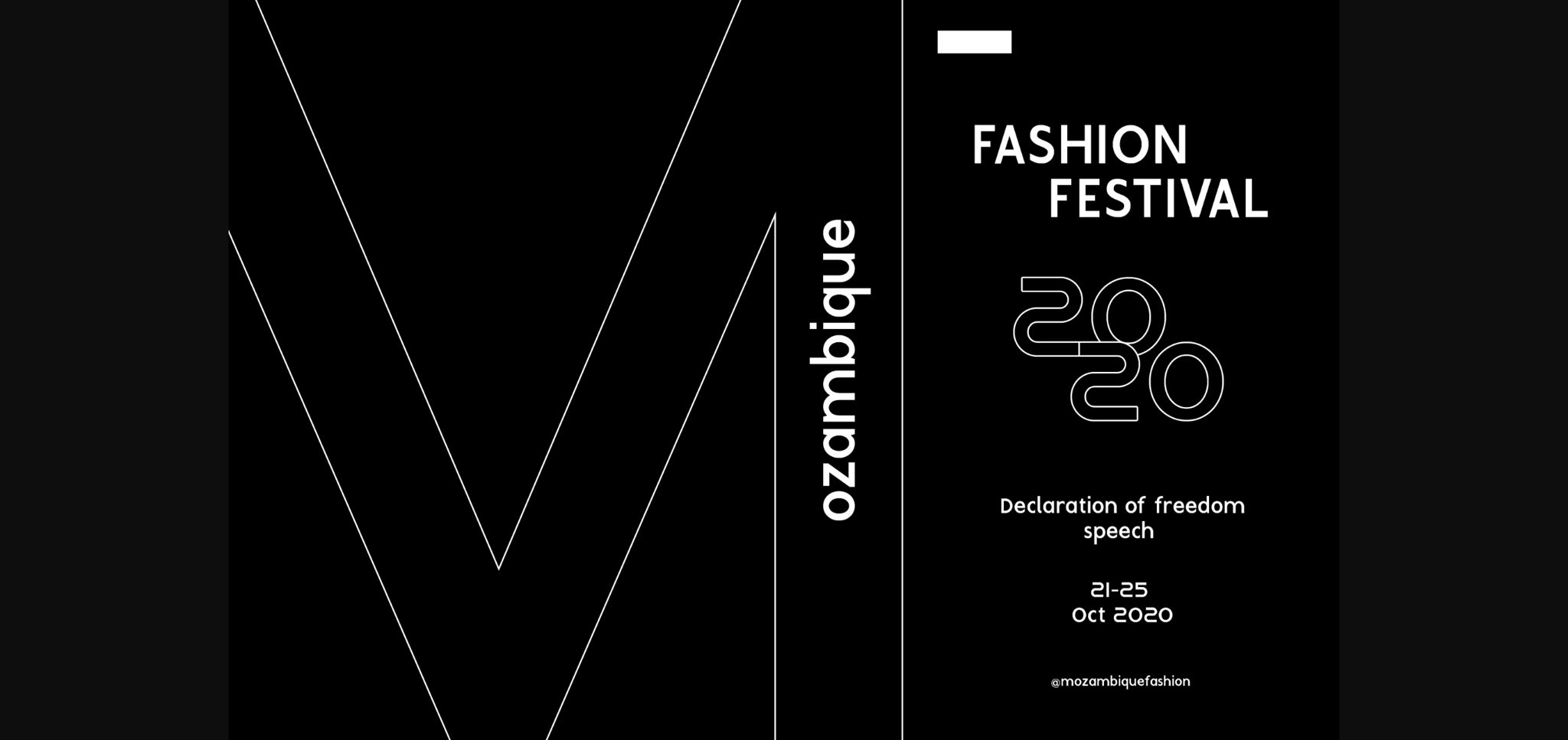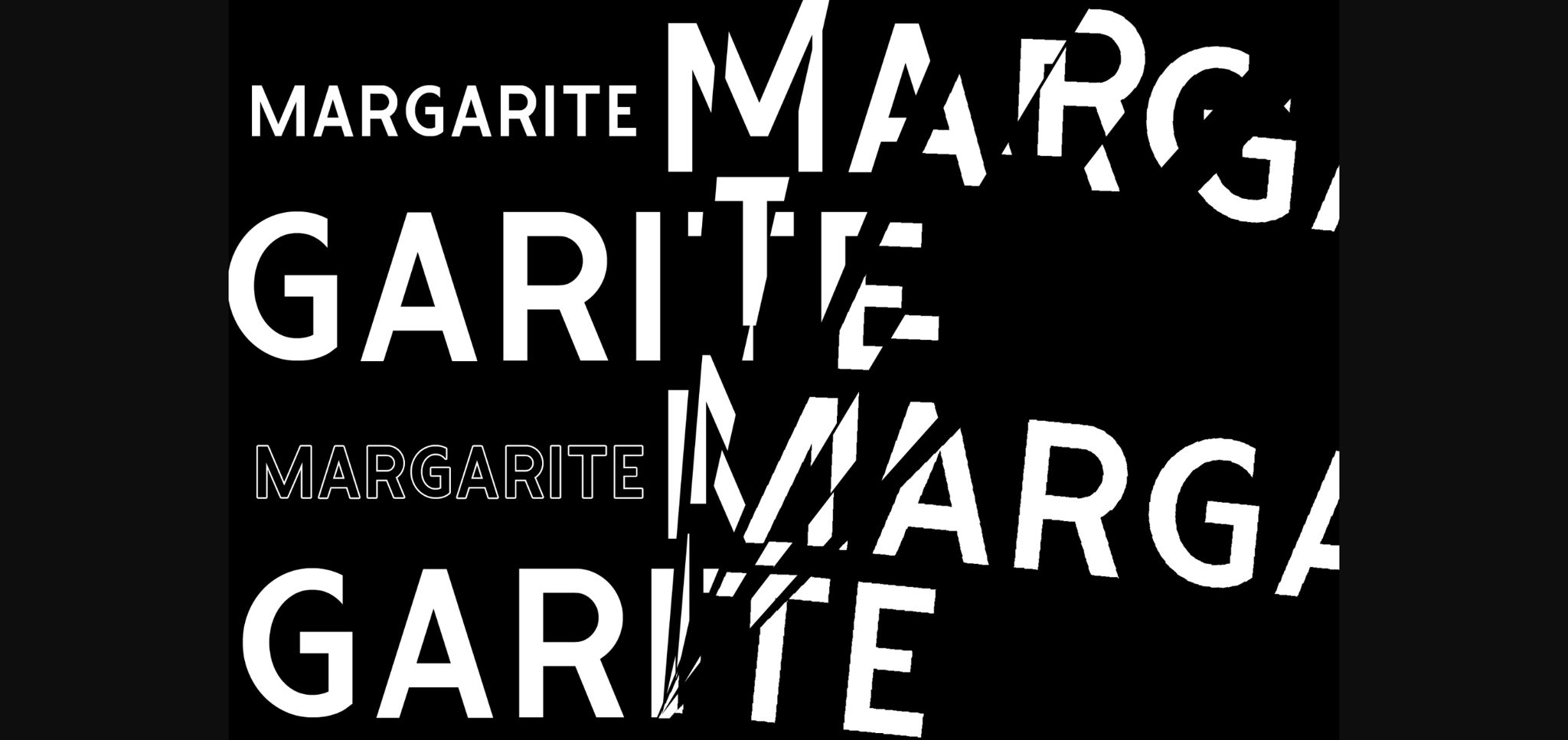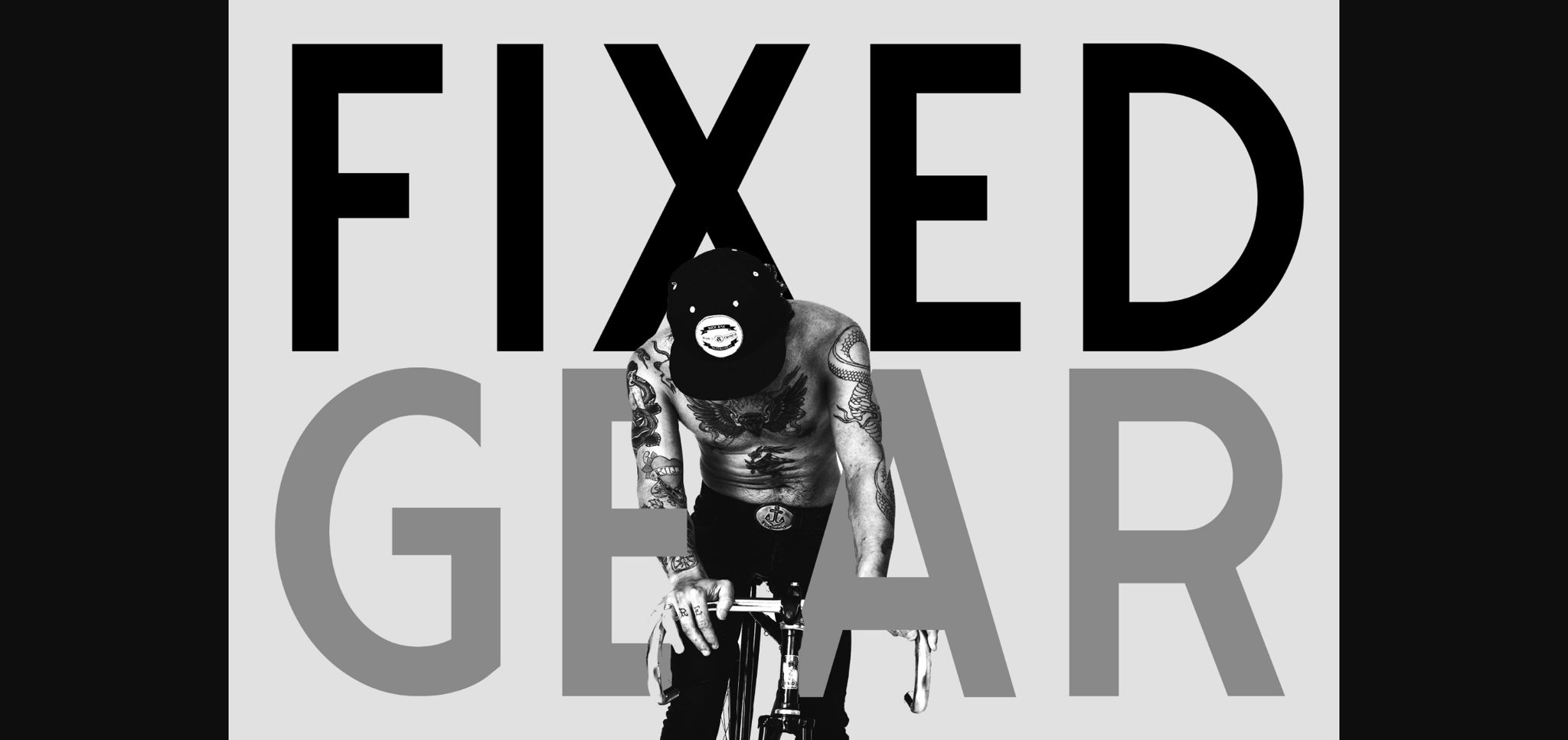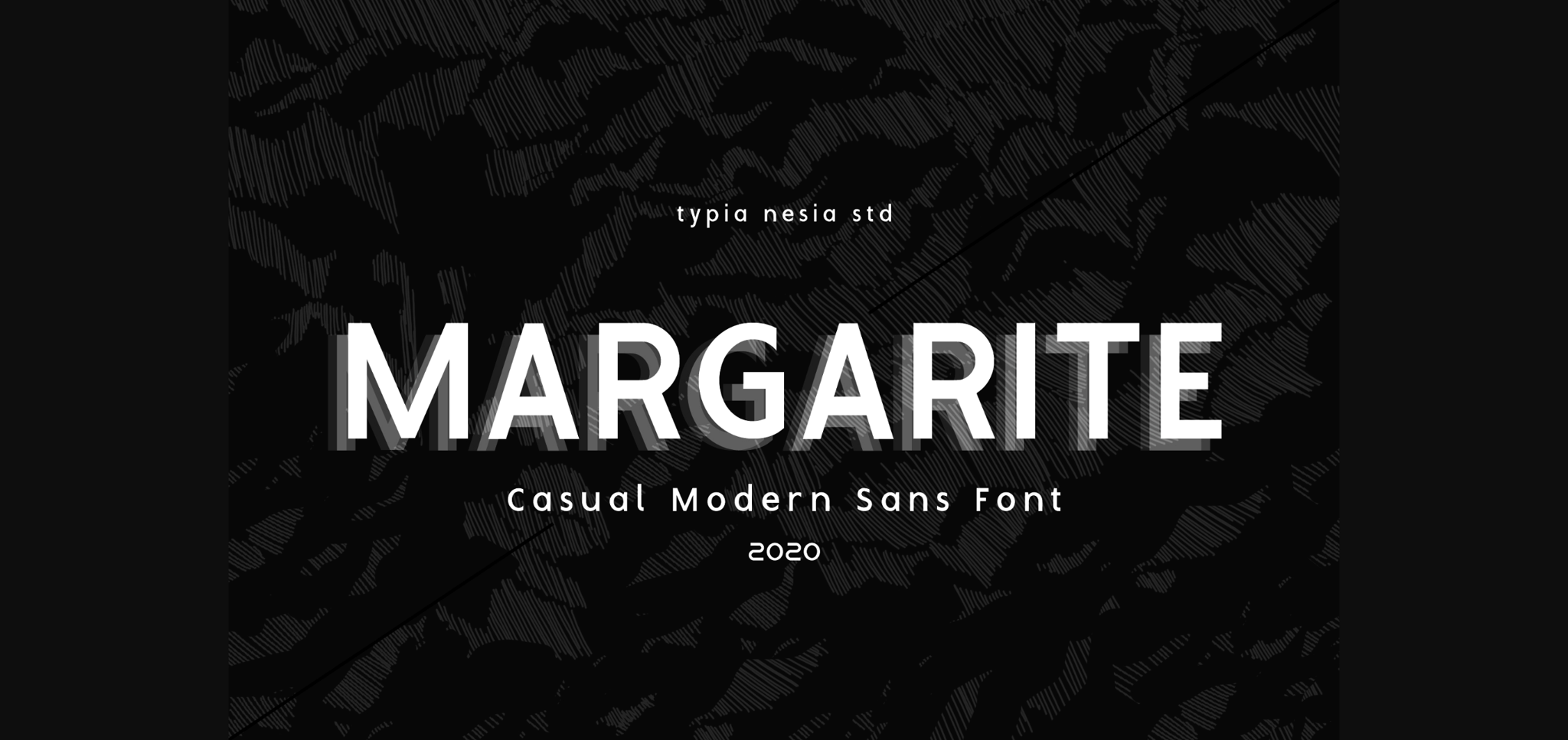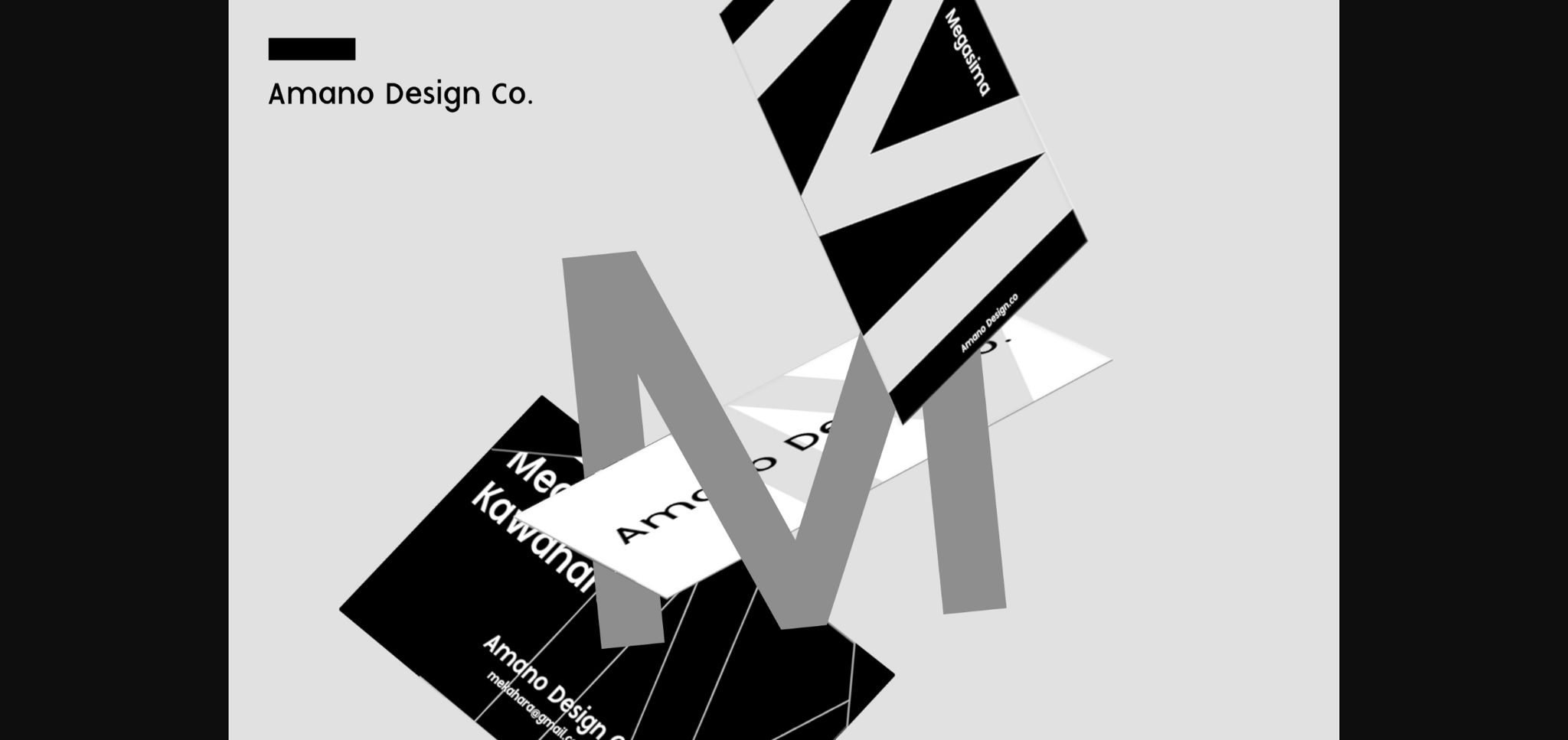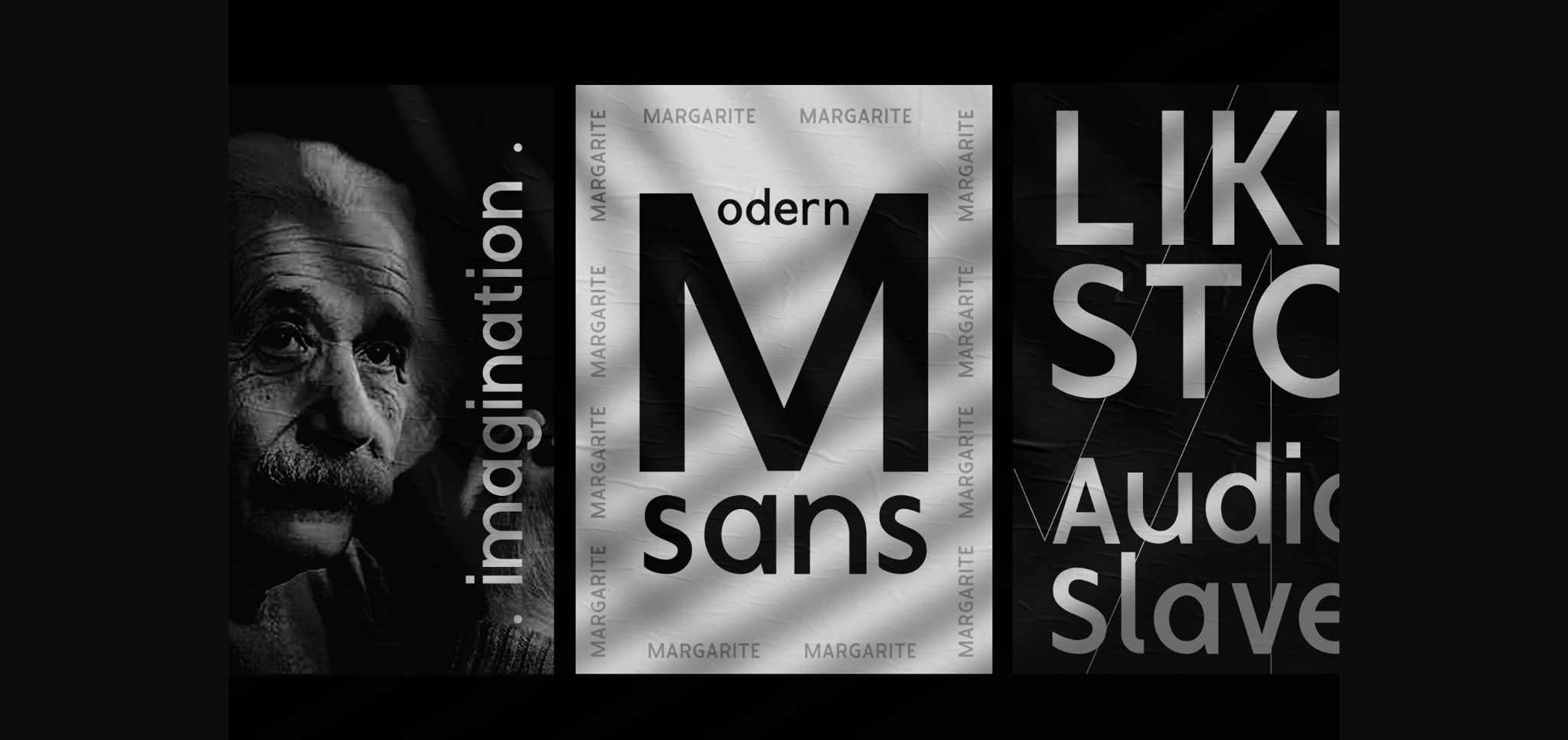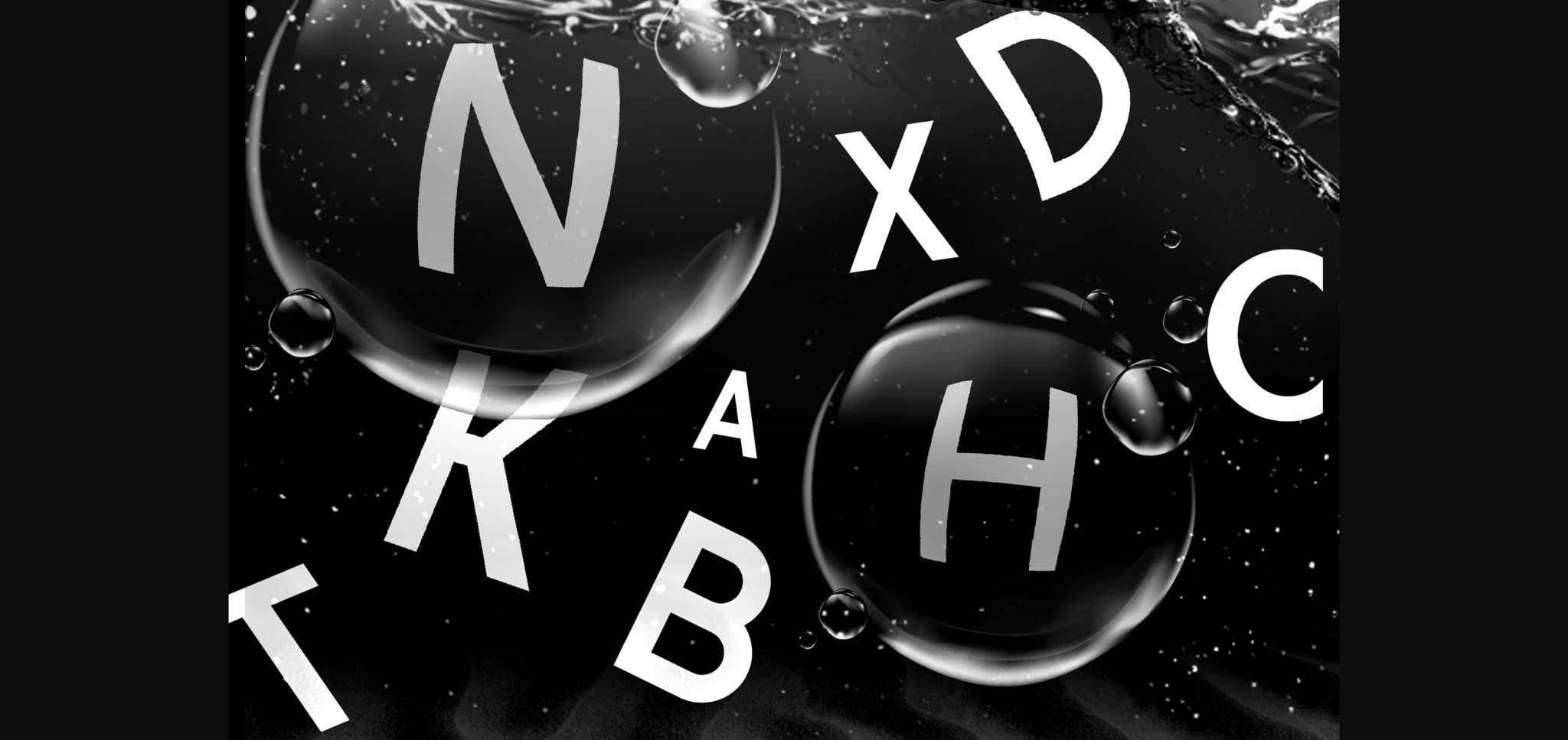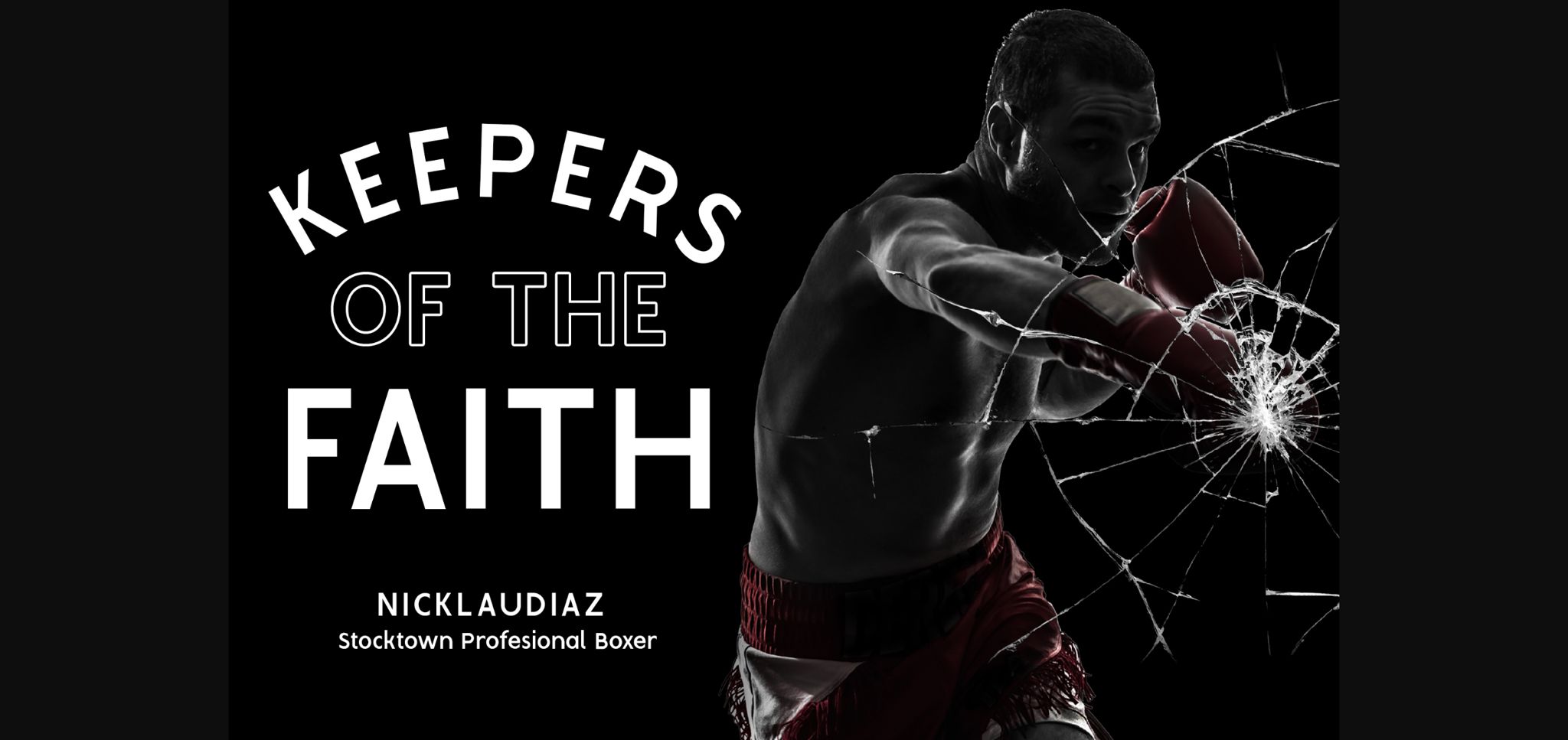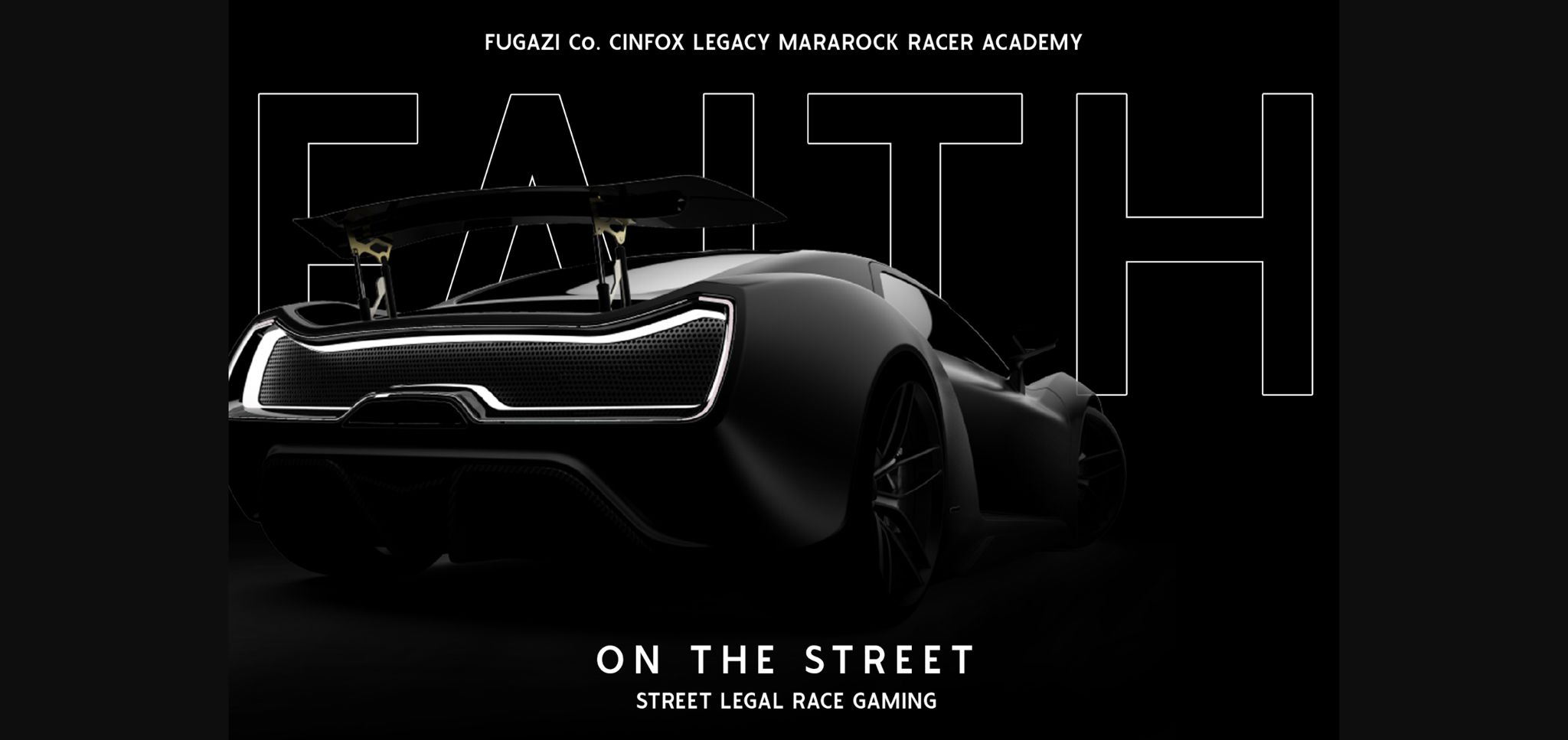
Margarite Font
About Margarite Font
Margarite introduces itself as a minimal and tidy sans serif font, offering versatility that seamlessly integrates into a wide spectrum of projects. With its clean lines and uncluttered design, Margarite has the ability to enhance your creative ideas and ensure they stand out with effortless elegance.
The allure of Margarite lies in its simplicity and adaptability. Whether you’re designing logos, crafting headlines, or developing branding materials, this font’s minimalistic style adds a touch of sophistication to your projects. Its clean lines and balanced proportions ensure clarity and readability, making it suitable for a diverse range of applications.
One of Margarite’s standout features is its versatility across various projects and design aesthetics. Whether you’re working on digital interfaces, print publications, or marketing campaigns, Margarite seamlessly blends into different design contexts, maintaining consistency and coherence throughout your creative endeavors.
Moreover, Margarite’s neat sans serif design allows for creative flexibility and expression. Whether used for body text or as a headline font, Margarite brings a sense of refinement and polish to your designs, helping them to stand out and make a lasting impression.
Incorporating Margarite into your creative ideas is certain to elevate their aesthetic appeal and captivate your audience’s attention. Whether you’re a seasoned designer or an aspiring creator, Margarite offers a versatile and stylish solution for bringing your vision to life with confidence and flair.
In summary, Margarite is more than just a font; it’s a powerful design asset that empowers you to create visually stunning and impactful projects. With its minimal and tidy sans serif design, Margarite adds a touch of elegance and sophistication to any design endeavor. Embrace Margarite and discover how it can elevate your creative ideas with effortless style and grace.With its clean lines and versatile style, Margarite seamlessly integrates into diverse projects, ensuring clarity and elegance. Incorporate Margarite into your designs and experience how it enhances their visual appeal with effortless sophistication and charm.